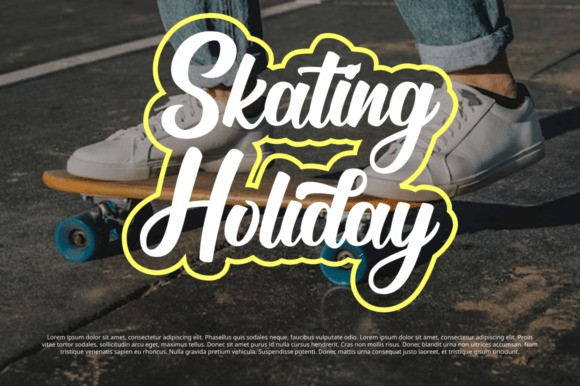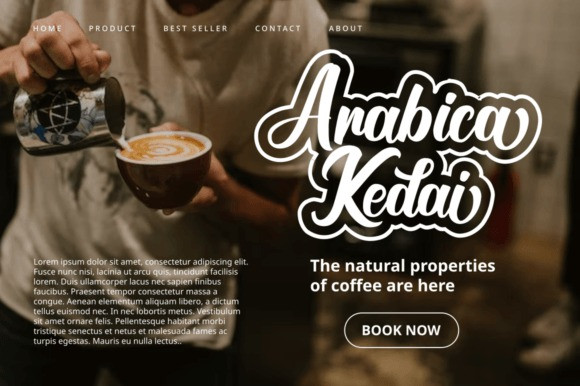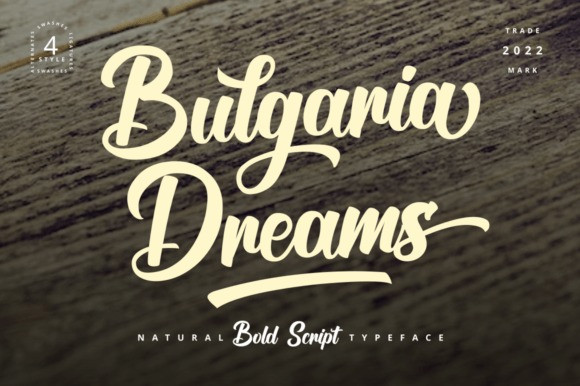
Bulgaria Dreams Font
Bulgarian Dreams Script Font is a lettering style font with a touch of smooth and natural curved lines like when writing manually on paper using a brush pen.
There are 4 font styles that you can use to enhance your design
Apart from being used for logos and brochures, Bulgaria Dreams font can also be used for poster titles, book titles, lettering, merchandise Design etc